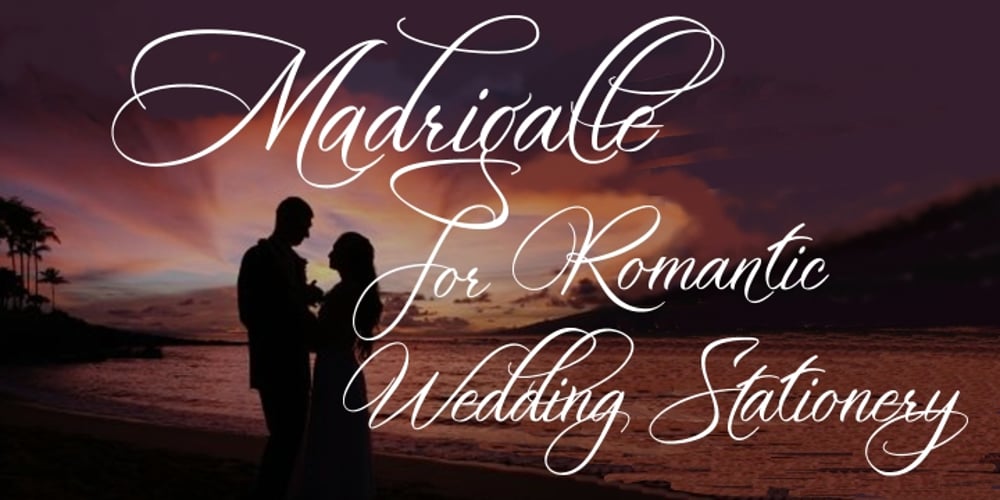
Madrigalle
Madrigalle font
Madrigalle Font Family was designed by Anton Scholtz and published by Scholtz Fonts. Madrigalle contains 4 styles and family package options. Madrigalle was seven months in the making and may be described as a contemporary copperplate. When designers look for a font that is both elaborate and strong, they generally have to go back to styles of a previous period, possibly produced recently but not contemporary in their look and feel. In Madrigalle, I believe that I’ve produced a font that is contemporary but has the boldness and delicacy that mark the fonts of previous generations. I feel that most fonts that derive their style from the complexity of their characters place too much emphasis on upper case characters, and that lower case characters are very conservatively treated. I have tried, with Madrigalle, to redress this imbalance and to introduce informality and vigor to the genre. Madrigalle comes in three options: Two simpler options, Madrigalle Nocturne – slightly less elaborate, and Madrigalle Minuet – slightly more elaborate. Each of these options may be easily used in packages that don’t support the Character Map OpenType feature. The Professional Option, Madrigalle Expert, combines all the features of Nocturne and Minuet and has a large number of additional opentype character alternatives. It takes full advantage of Opentype features to provide the designer with a wide range of options, enabling him to give an individual stamp to his work. I recommend that packages such as InDesign and Illustrator, which support Character maps, be used with Madrigalle Expert in order to make full use of this font’s OpenType features. (Just select GLYPHS from the TYPE palette, and set your creativity free!) All Madrigalle styles contain the accented characters used in the major European languages. Try Madrigalle, use it for invitations, advertising media, fashion media, music media, contemporary cosmetics, anything romantic… the list is endless!